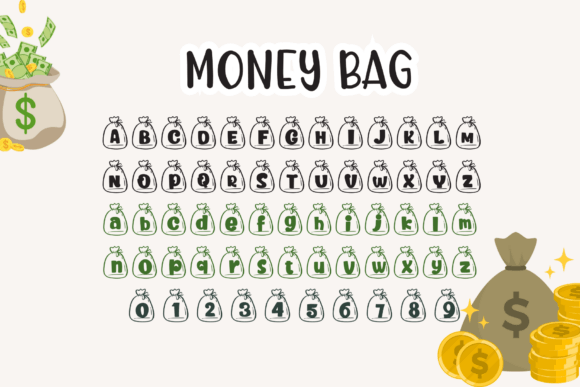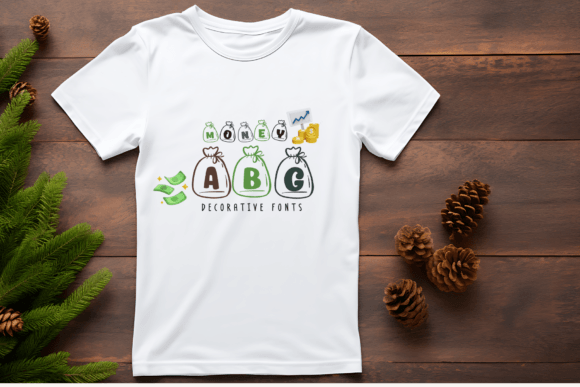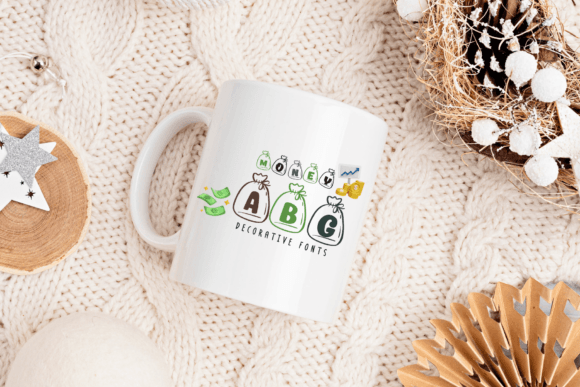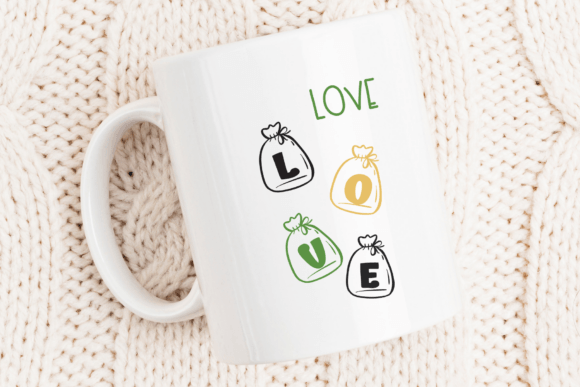
Introduction to Money Bag Font
Do you ever find yourself in a creative flow, surrounded by scraps of paper, pens, and endless possibilities? I’m sure many of us have experienced that magical moment where our imagination takes over, and the ideas start pouring in. For designers, this feeling is a treasure trove of inspiration, and having the right tools can make all the difference. That’s where the Money Bag Font comes in – a high-quality, free design resource that’s about to become your new best friend.
This charming Decorative font is perfect for adding a touch of whimsy to your creative project. Whether you’re writing a diary, making greeting cards, or designing banners, the Money Bag Font is an excellent choice. Its transparent background and versatile style make it a valuable asset for designers looking to elevate their work.
Key Features of Money Bag Font
- High-quality design resource suitable for creative projects, including logos, graphics, and more.
- Features a transparent background, allowing for easy customization and layering in various design applications.
- Includes a large character set with multiple styles and weights, providing versatility for various design needs.
- Designed with a unique, modern aesthetic, the Money Bag Font is perfect for adding a touch of sophistication to any creative project.
Honest Review: Money Bag Font
I recently had the opportunity to work with the Money Bag Font, and I’m excited to share my honest review with you. As a designer, I’m always on the lookout for high-quality design resources that can elevate my creative projects. The Money Bag Font did not disappoint.
- What works well: ✨ The font is incredibly versatile, with a clean and modern design that’s perfect for a variety of creative projects. The transparent background is also a great feature, making it easy to layer over other design elements.
- ⚠️ The font is only available in a limited number of weights, which may not be ideal for designers who need a wider range of options.
- ⚠️ The font may not be suitable for very large or complex designs, as it can become difficult to read at larger sizes.
Overall, I’m impressed with the Money Bag Font. While it may have a few limitations, it’s a great addition to any designer’s toolkit. With its high-quality design and transparent background, it’s perfect for a variety of creative projects. Whether you’re working on a logo, brochure, or website, the Money Bag Font is definitely worth considering.
Experiment with different font sizes and colors to create a visually appealing design. Use the Money Bag Font in combination with other design elements, such as images or shapes, to add depth and interest to your project.
The Money Bag Font is perfect for designs related to finance, wealth, or prosperity. Use it in logos, business cards, or marketing materials to convey a sense of high-end quality. This font is also great for creating eye-catching graphics or illustrations for social media or advertising campaigns.